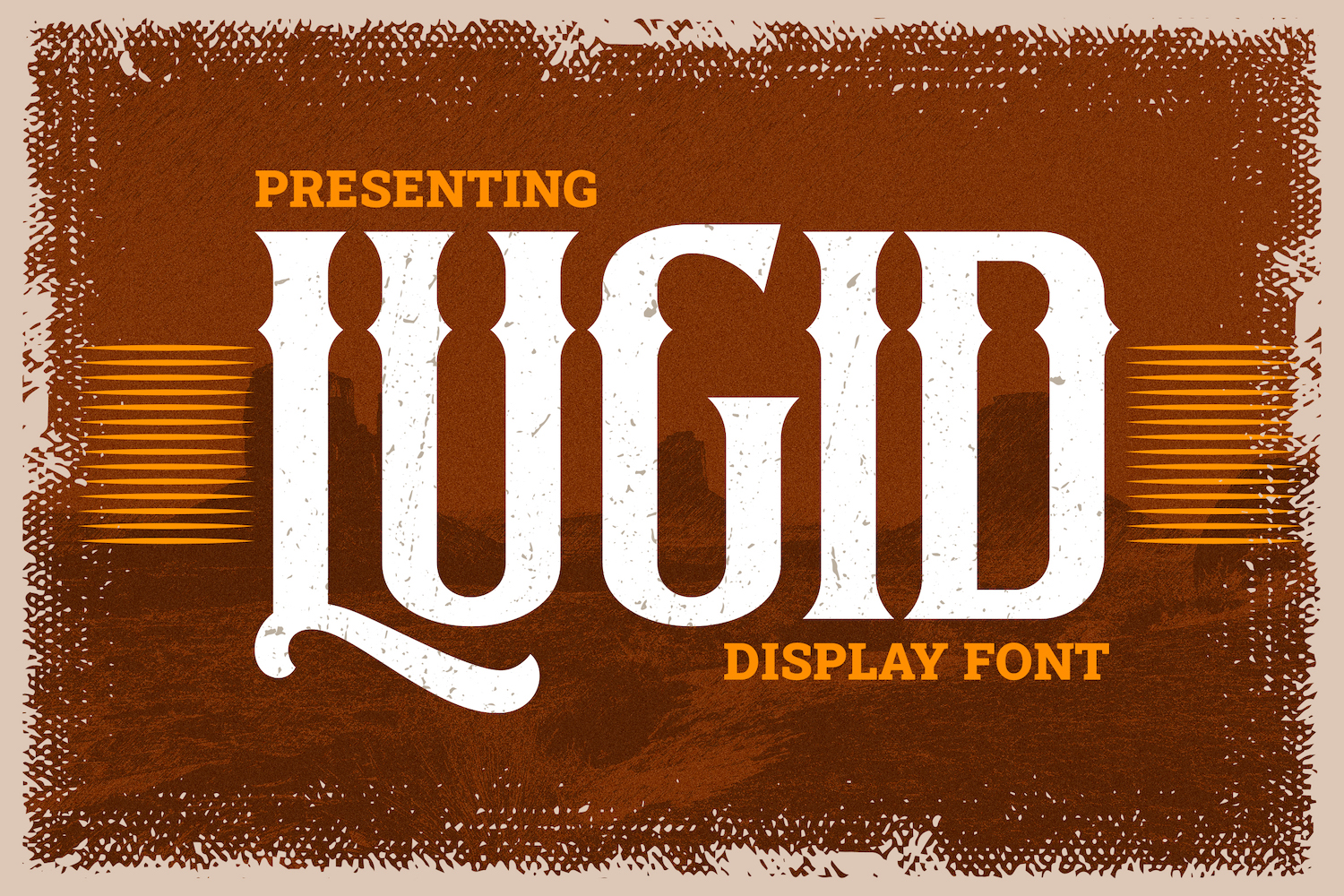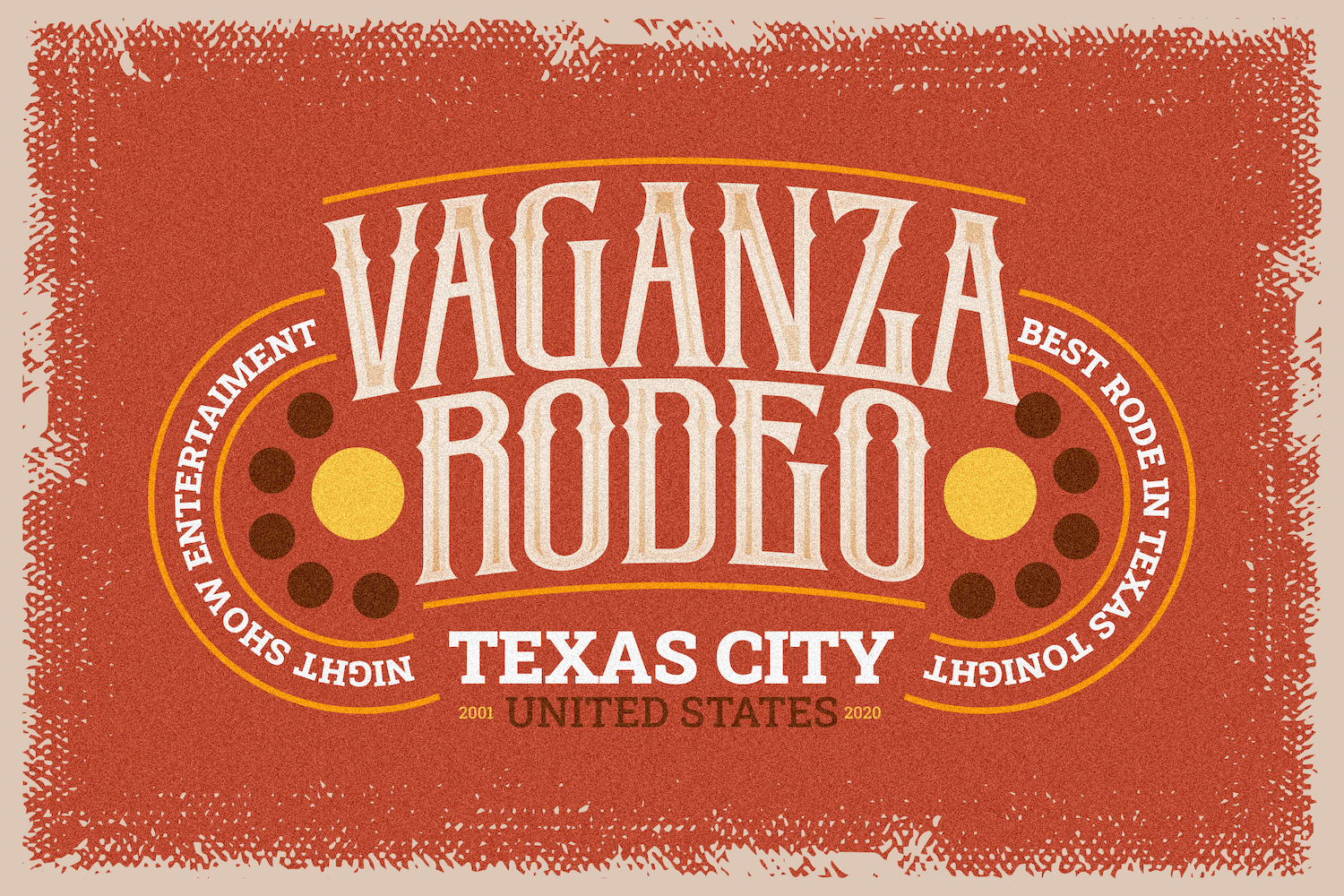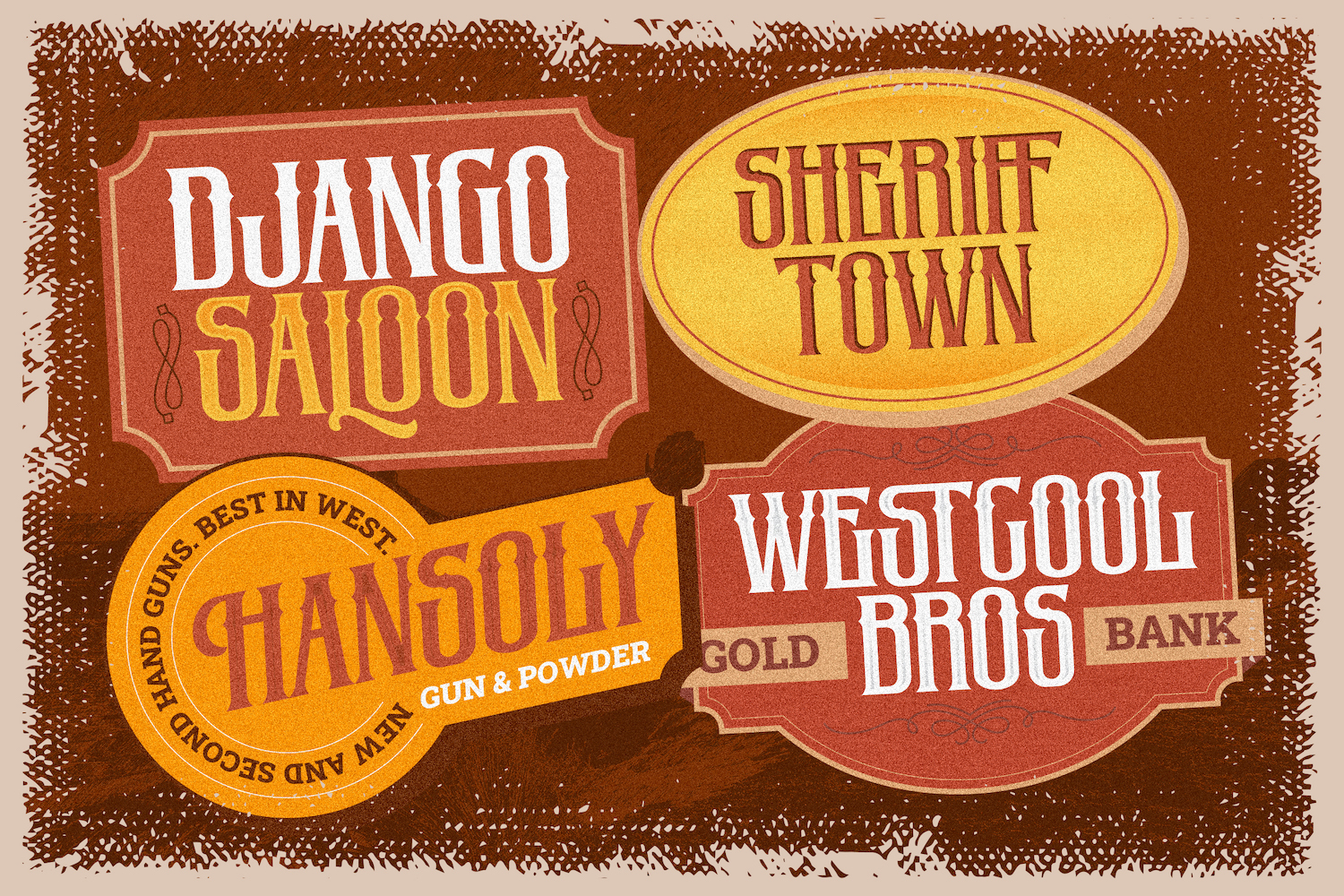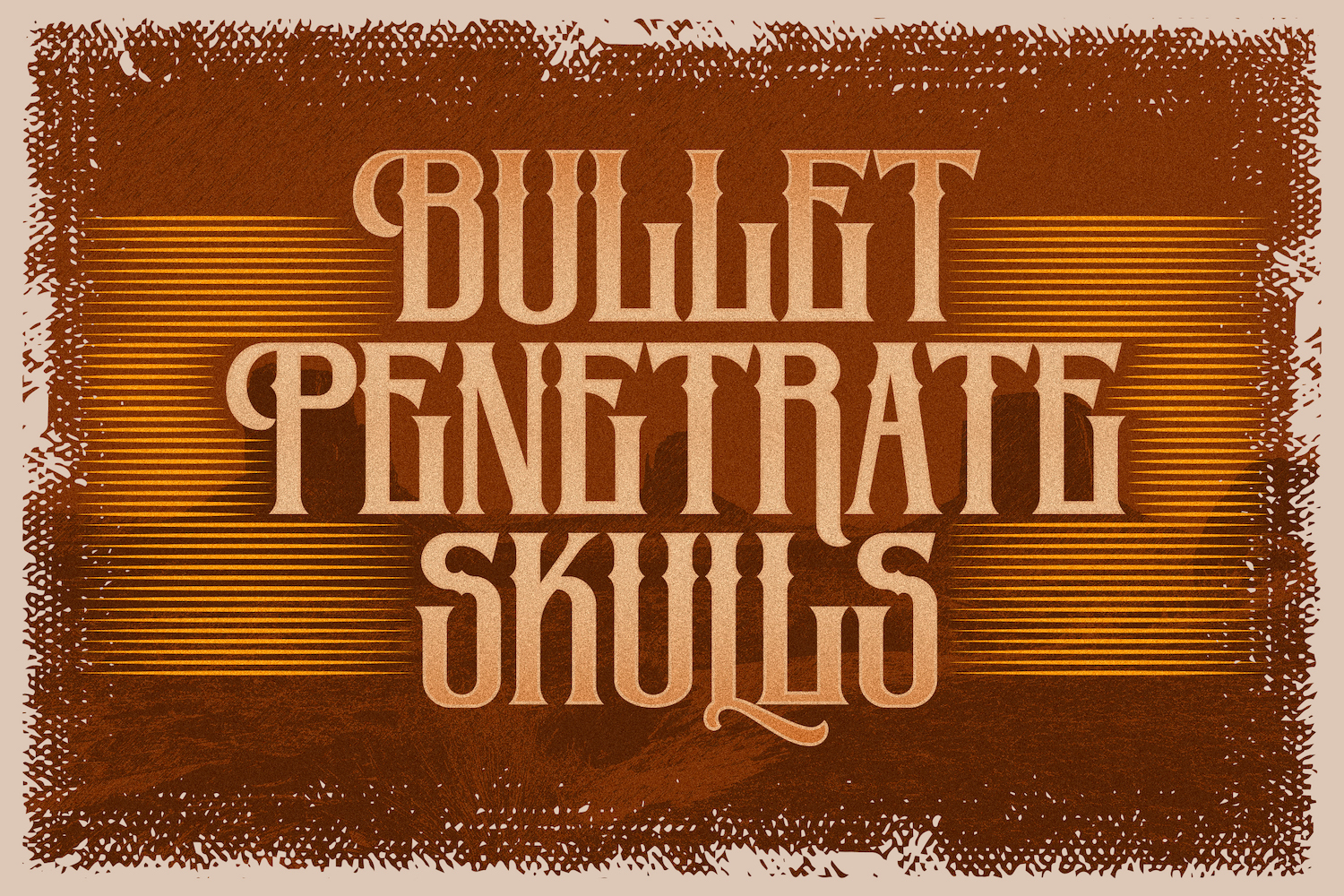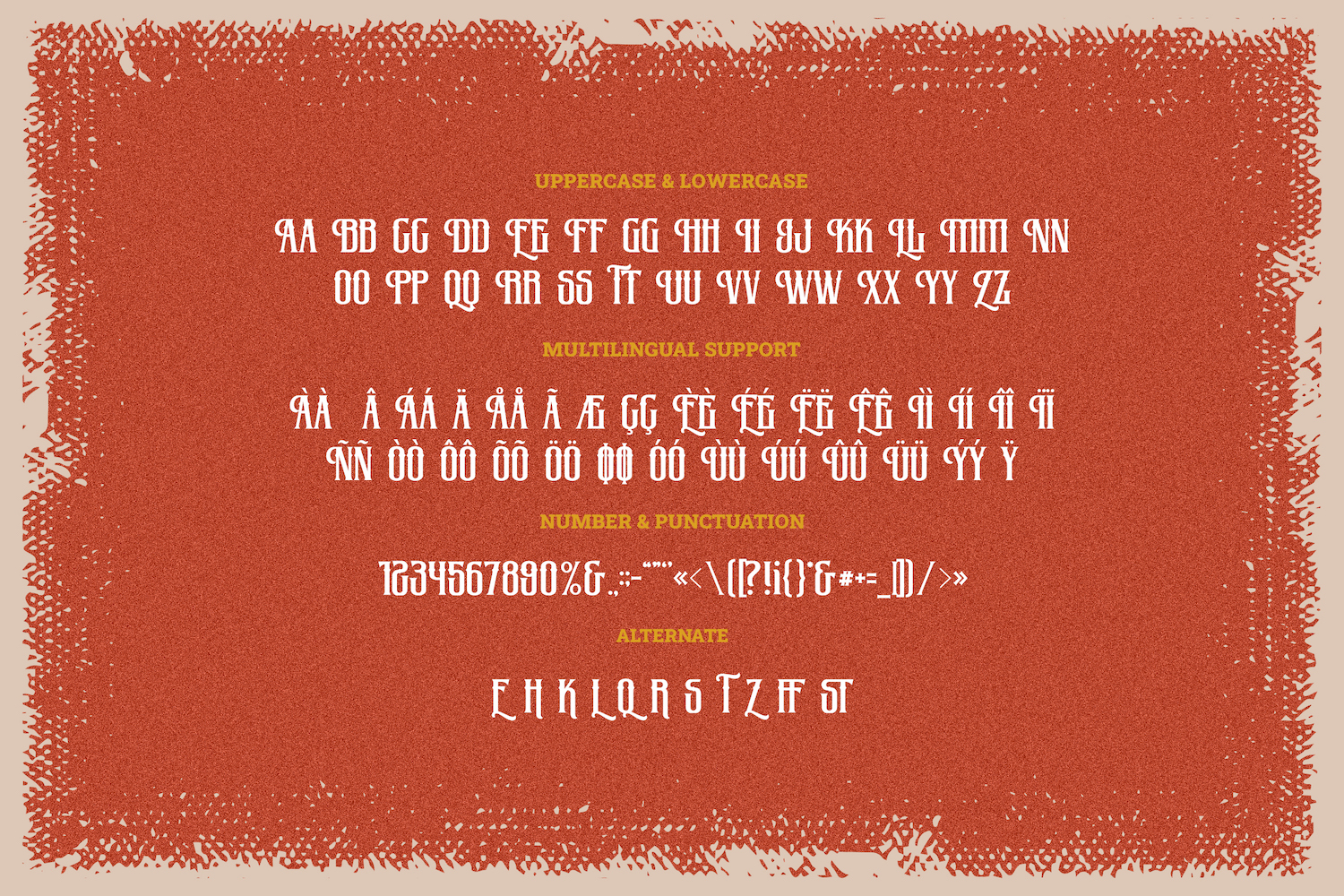
Lucid is a bold western display font that combines rugged charm with a strong sense of vintage style. Designed to capture the spirit of the wild west, Lucid features high-contrast letterforms, extended spurs, and rustic textures that give it an authentic handcrafted look. It’s perfect for projects that need a western flair. Like saloon posters, rodeo flyers, and old-time branding.
This typeface includes uppercase and lowercase characters, multilingual support, punctuation, and a set of stylistic alternates for added versatility. With its retro aesthetic and gritty personality, Lucid is an excellent choice for logos, apparel, packaging, and signage that demand attention and character.